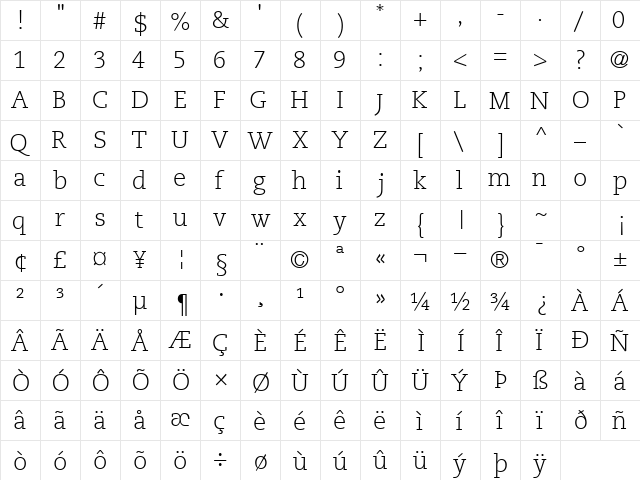
MonologueLightSSK Regular Font Preview
Design Context for MonologueLightSSK Typeface
MonologueLightSSK brings the precise, column-aligned rhythm of monospaced typography to designs that value technical clarity and systematic order. Its slender proportions lend an understated elegance to any composition.
Pro Tip: Use MonologueLightSSK with slightly increased line-height for extended reading — fixed-width spacing can feel dense in longer passages without extra breathing room.